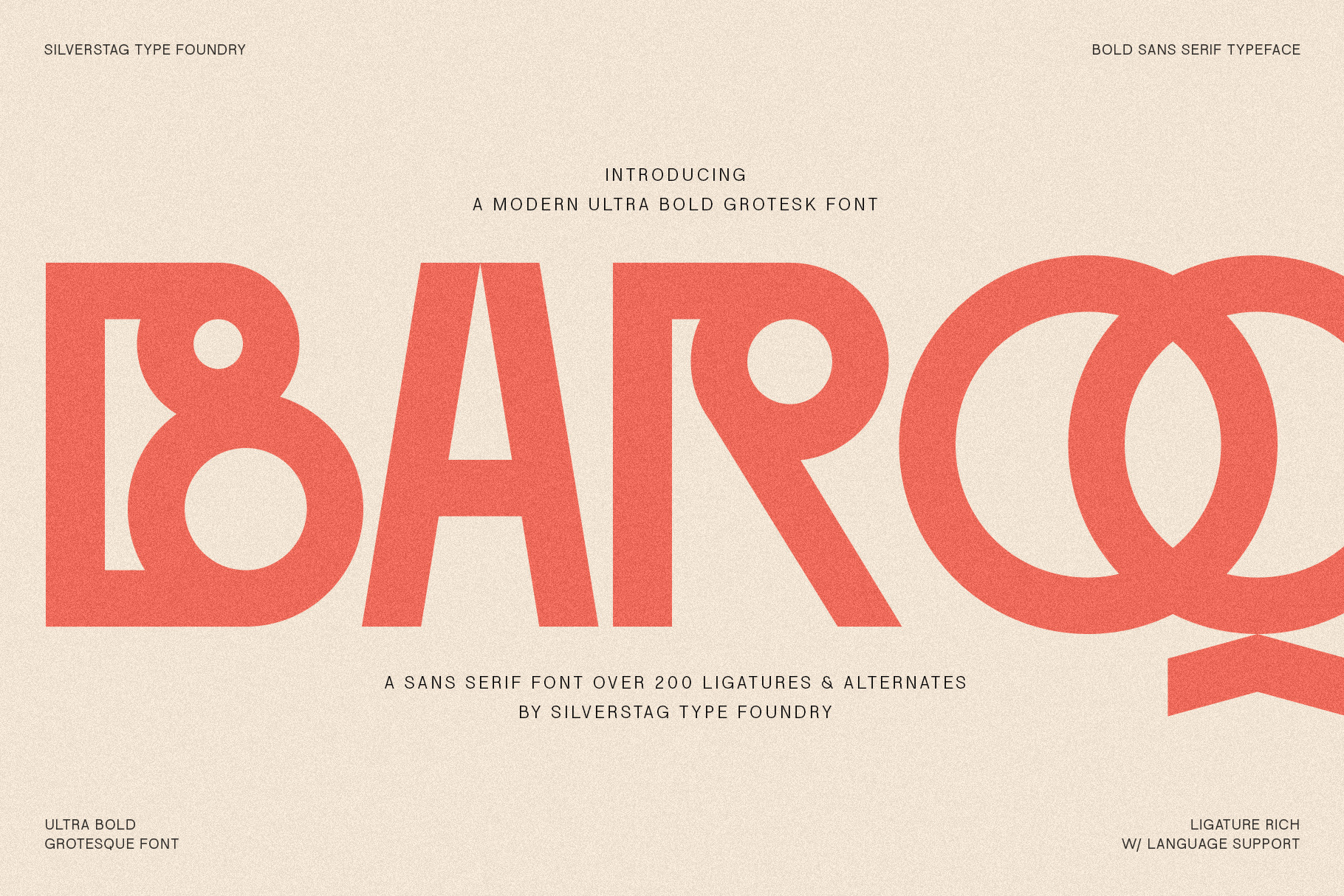
Baroque Grotesk - Ultra Bold Font
Introducing Baroque Grotesk Ultra Bold: Elevate Your Designs with Commanding Typography
Expand your Baroque Grotesk toolkit with the new Ultra Bold variant! This standalone font brings commanding power to the graceful elegance of the original Baroque Grotesk family.
- High-Impact Presence: Chunky strokes and sharp angles demand attention and elevate headlines, logos, and bold statements.
- Modern Meets Timeless: Geometric structure with subtle nods to baroque aesthetics creates a unique and sophisticated voice.
- Packed with Personality: Over 200 alternates and ligatures, including stylistic sets, provide endless options for customization.
- Global Reach: Extensive language support for over 92 languages ensures your designs resonate with a broad audience.
- Unforgettable branding and logo design
- Eye-catching posters and social media graphics
- Impactful website headers
- Trend-setting packaging design
- Dynamic editorial layouts
If you loved the original Baroque Grotesk, the Ultra Bold variant is your new go-to for when maximum impact is the mission.